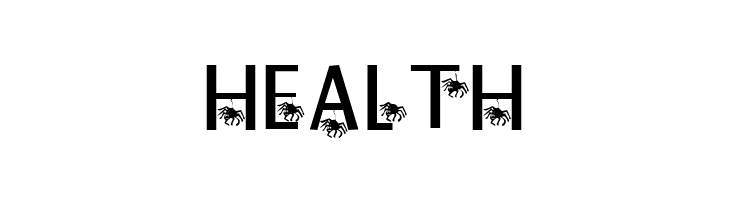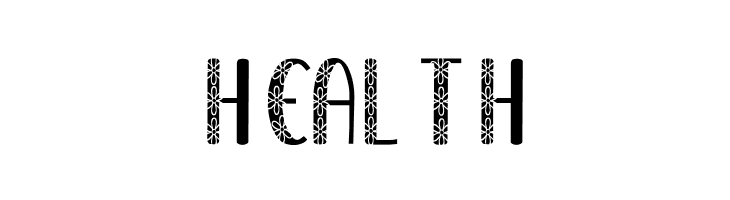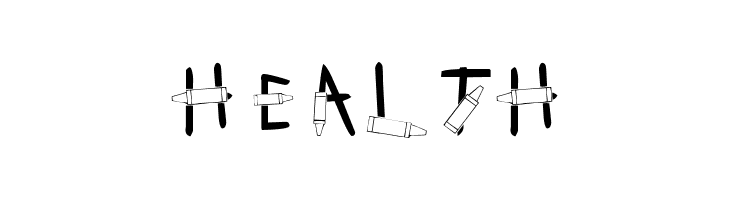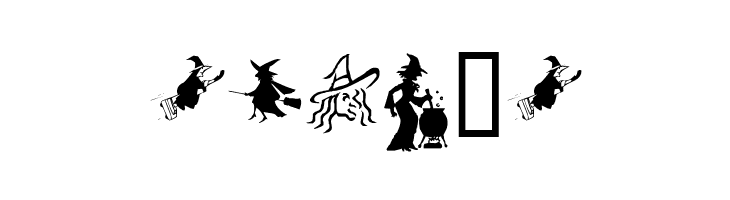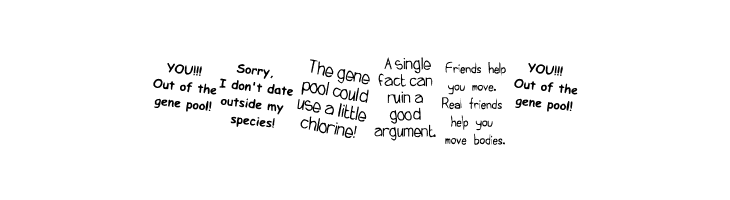
A bold, sans-serif font with decorative spider motifs for a spooky effect.
A decorative font with intricate floral patterns inside each character.
Bold, slanted font with strong strokes and dynamic style.
A decorative collection of Christmas-themed images.
A playful decorative font featuring fast food illustrations for each character.
A whimsical font with crayon-themed letters, perfect for playful and creative projects.
A whimsical font with letters inside cartoonish swimsuits, perfect for playful themes.
A playful, animal-themed decorative font with bold uppercase letters.
A playful decorative font with witch and Halloween-themed illustrations.
A playful, handwritten font with dynamic, irregular strokes.